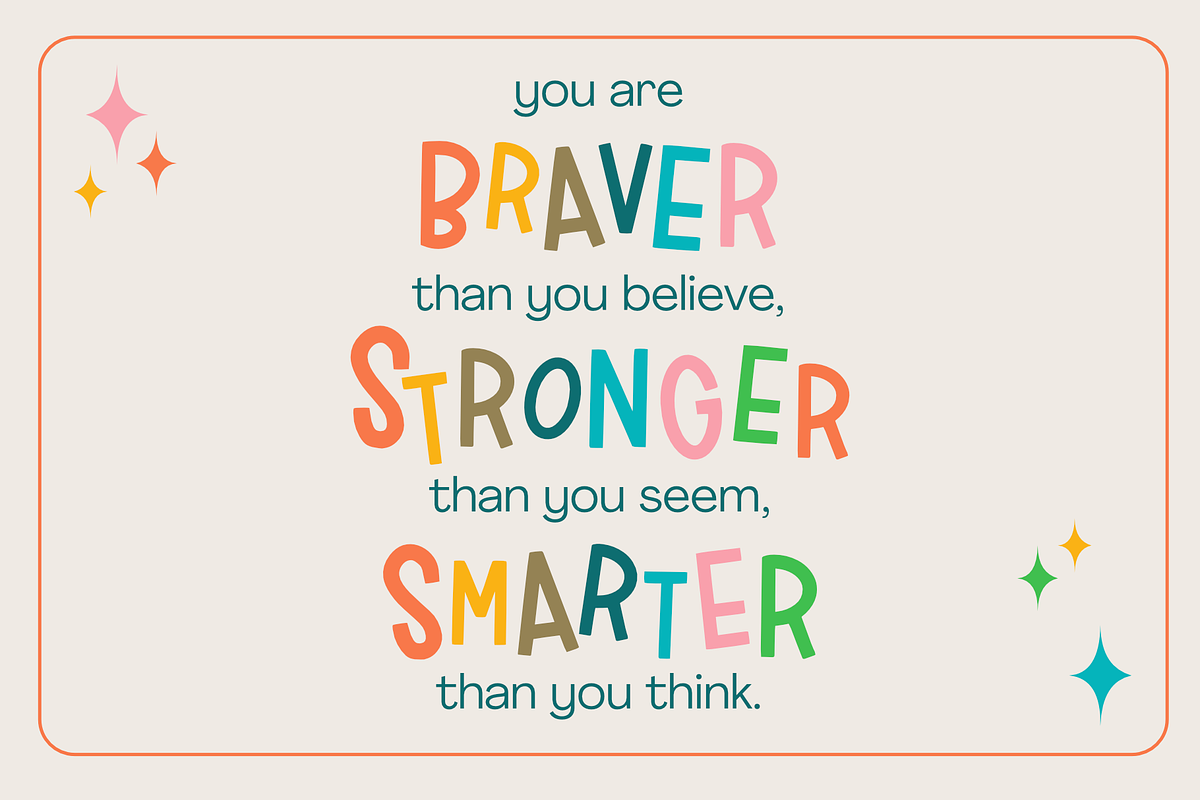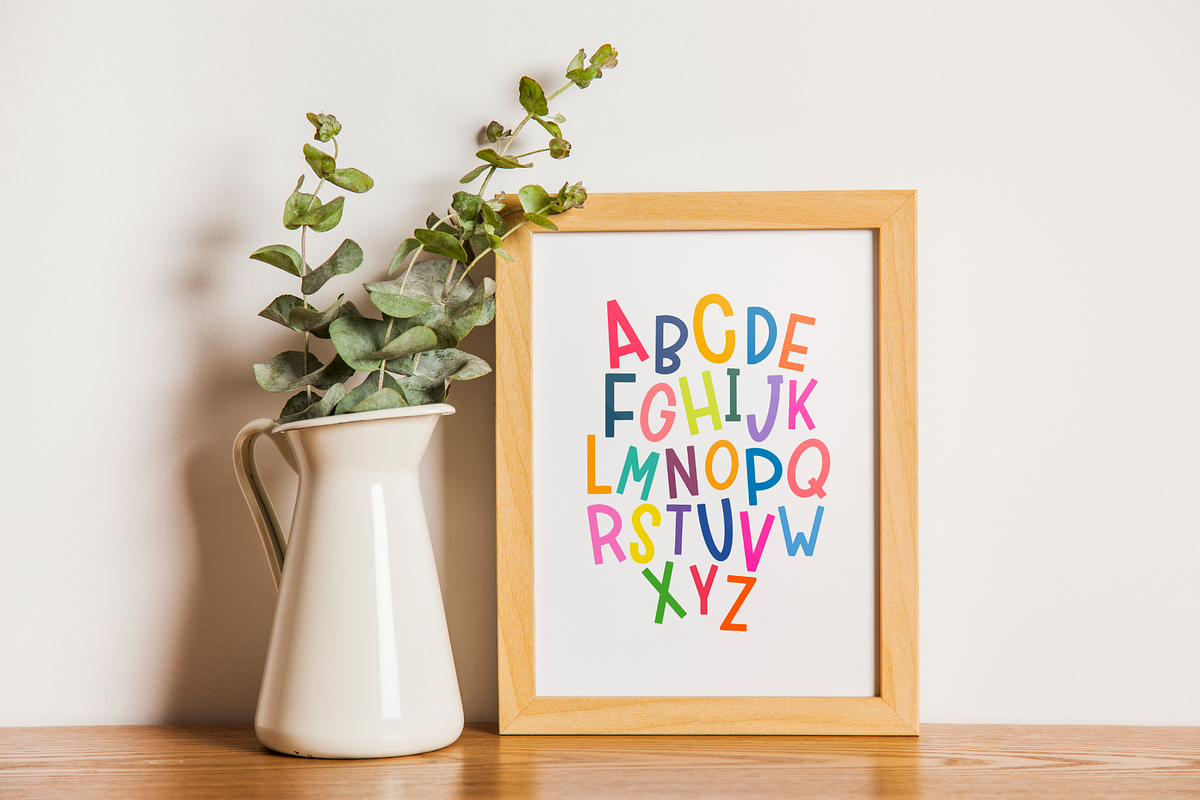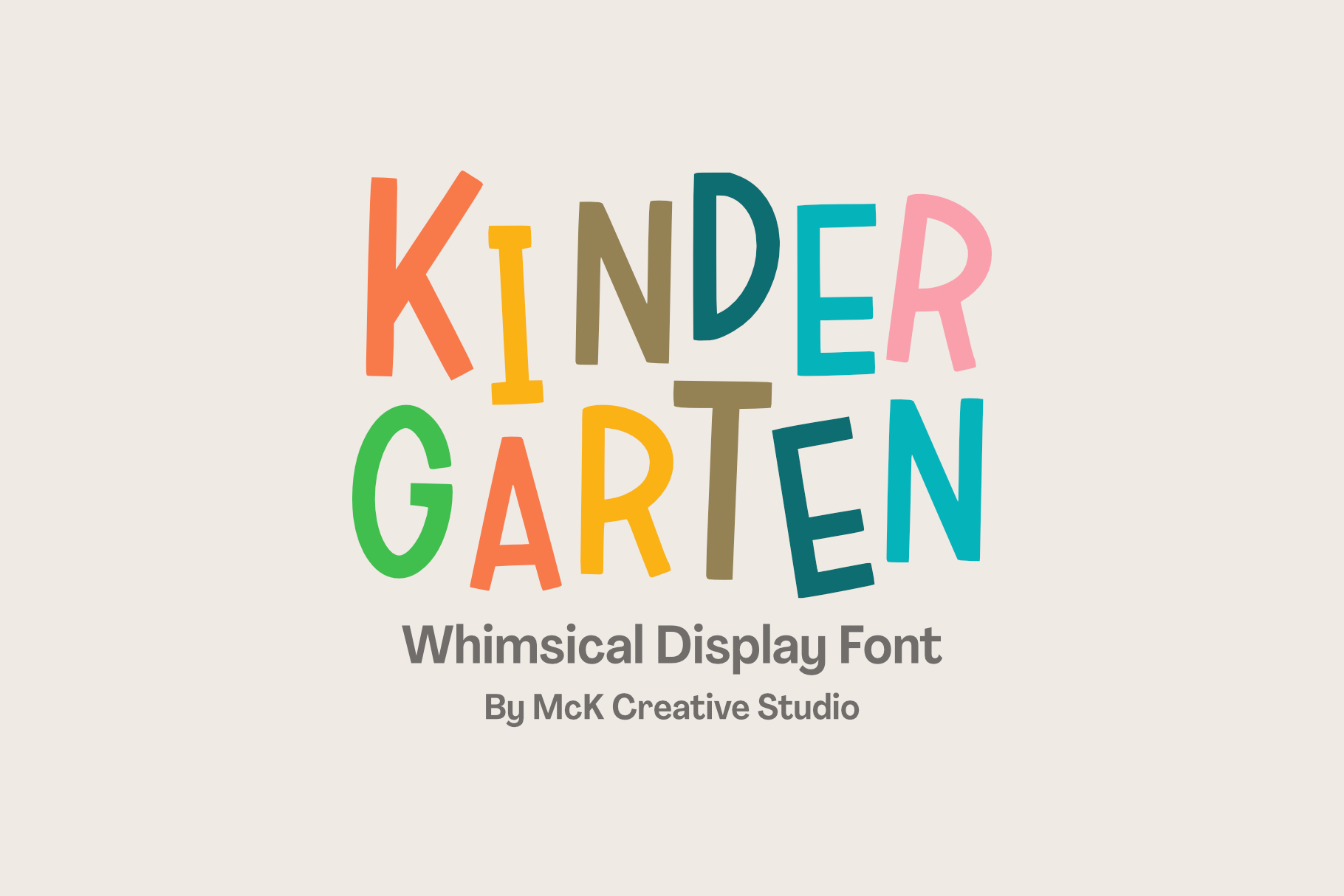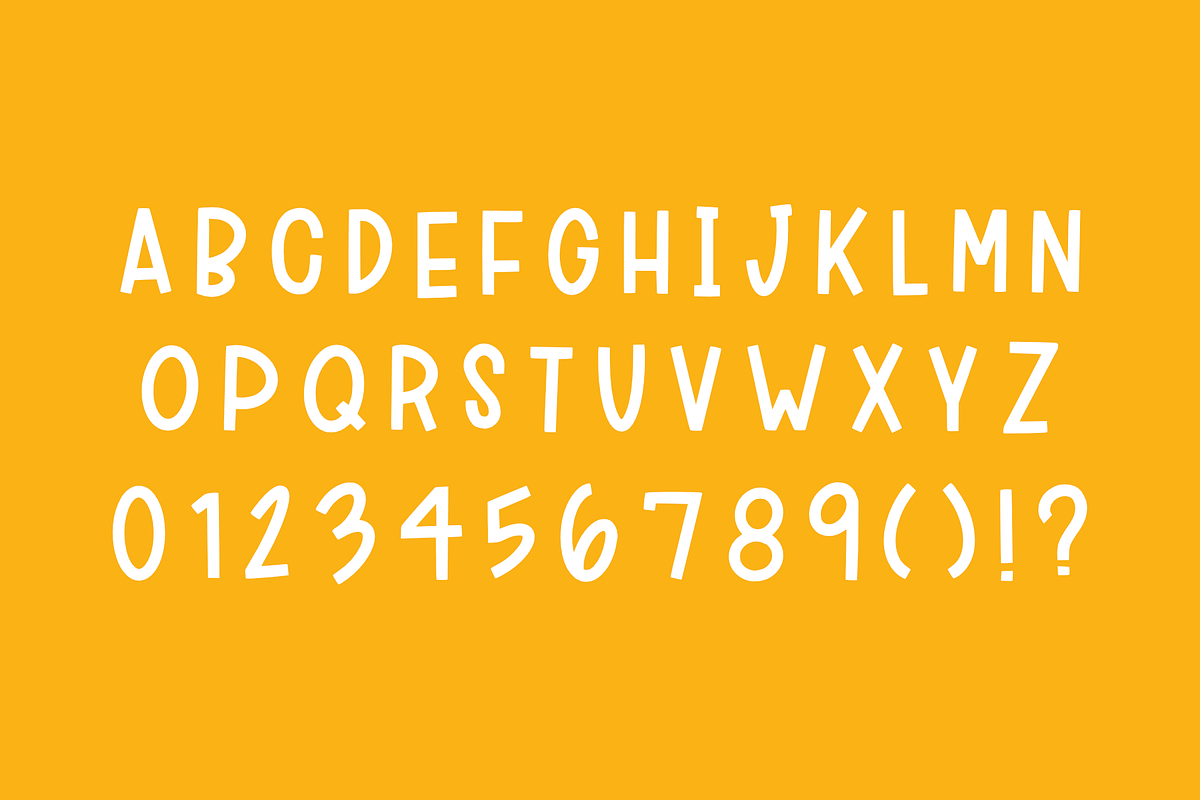
Kindergarten Whimsical Display Font
Kindergarten is a whimsical display font that captures the fun and carefree spirit of childhood! Whether for children's books, playful posters, or lighthearted designs, this font feels like a joyful adventure through a world of crayons, doodles, and daydreams!